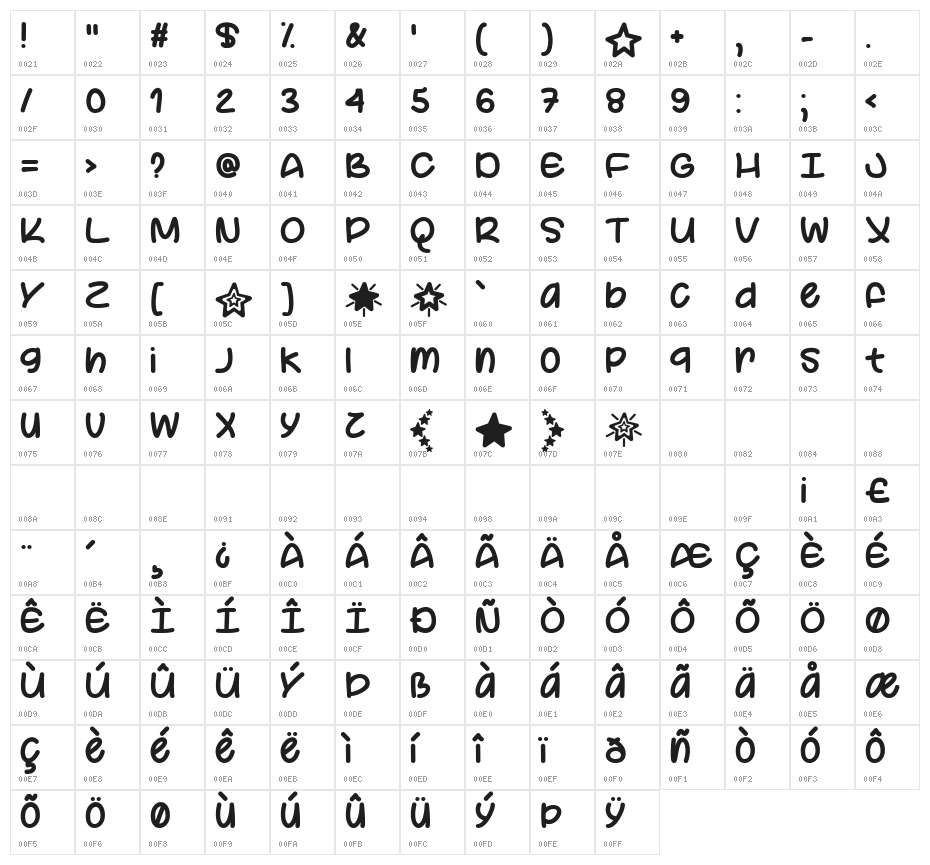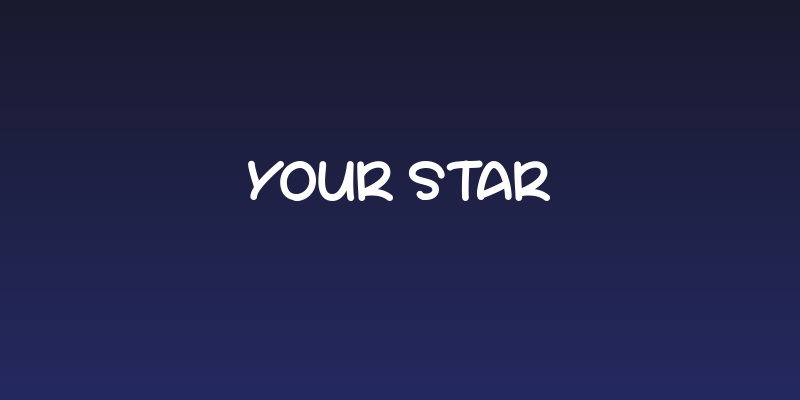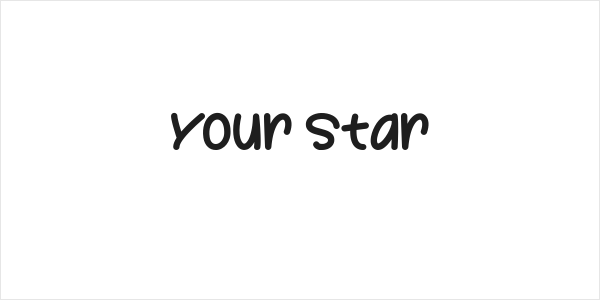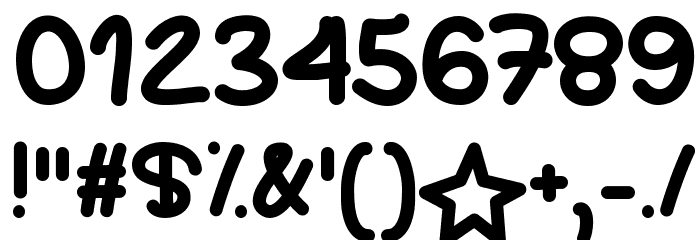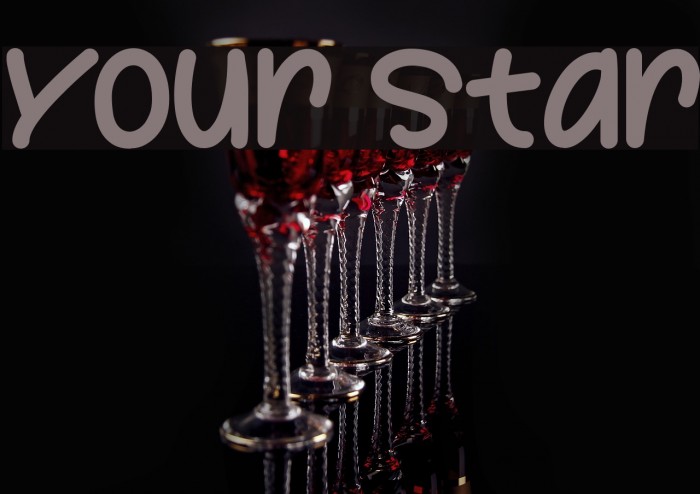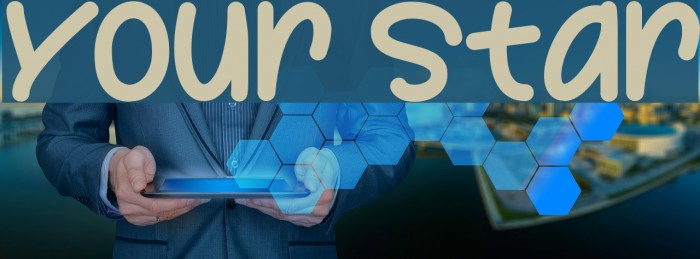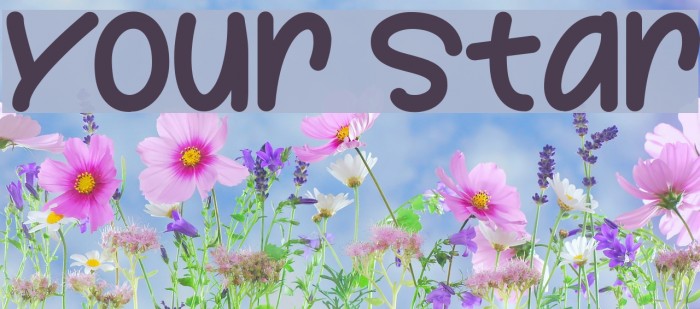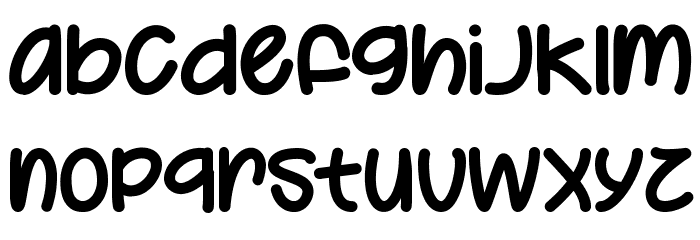
Your Star Font
Your Star Description
This playful and rounded font features a handwritten style with a casual and friendly appearance. The letters are bold and slightly irregular, giving them a whimsical and approachable feel. The strokes are consistent in thickness, providing a uniform look across all characters. The font includes both uppercase and lowercase letters, numerals, and a variety of special characters. Its rounded edges and smooth curves make it ideal for projects that require a touch of fun and creativity.
| Use Case | Logos, Headlines, Informal Text |
| Proposed Projects | Ideal for children's books, playful branding, greeting cards, and informal invitations. |